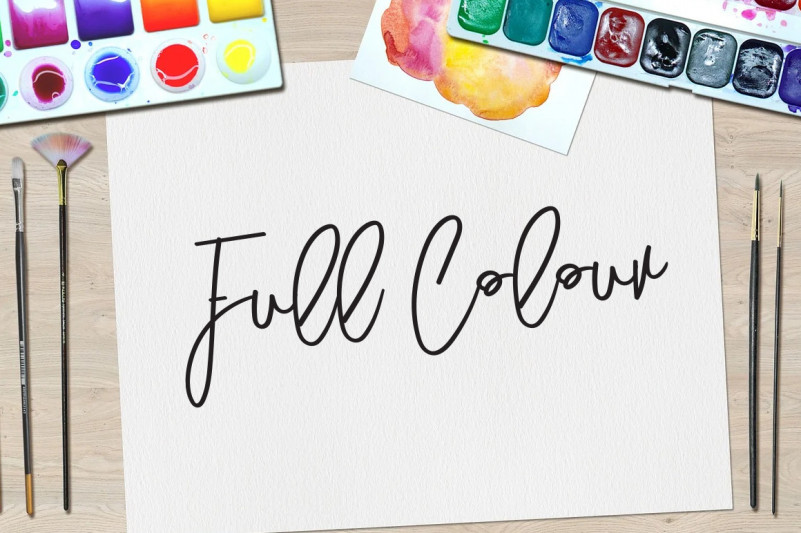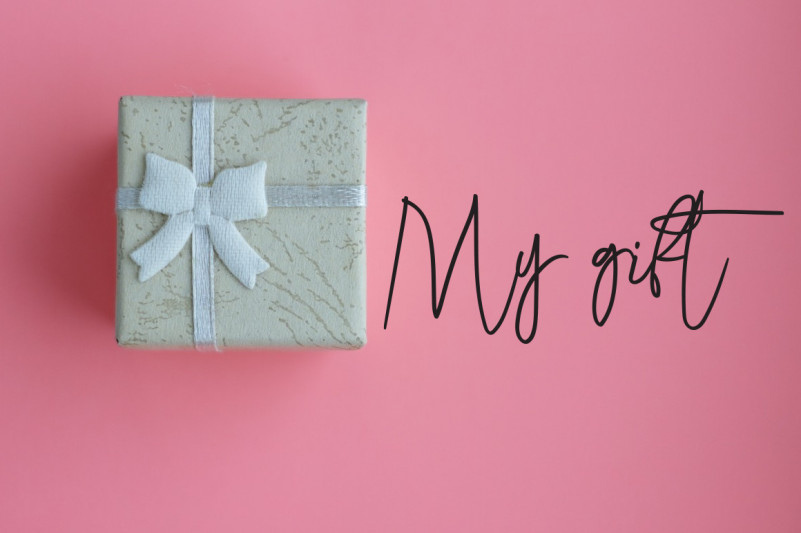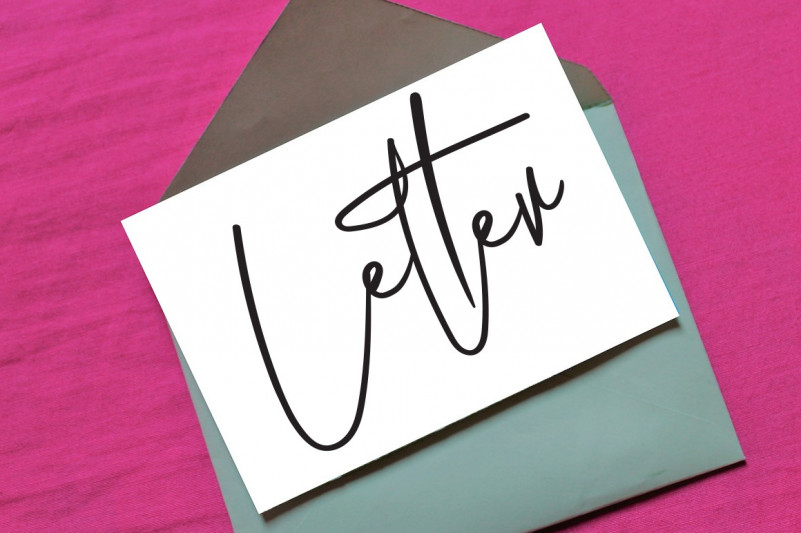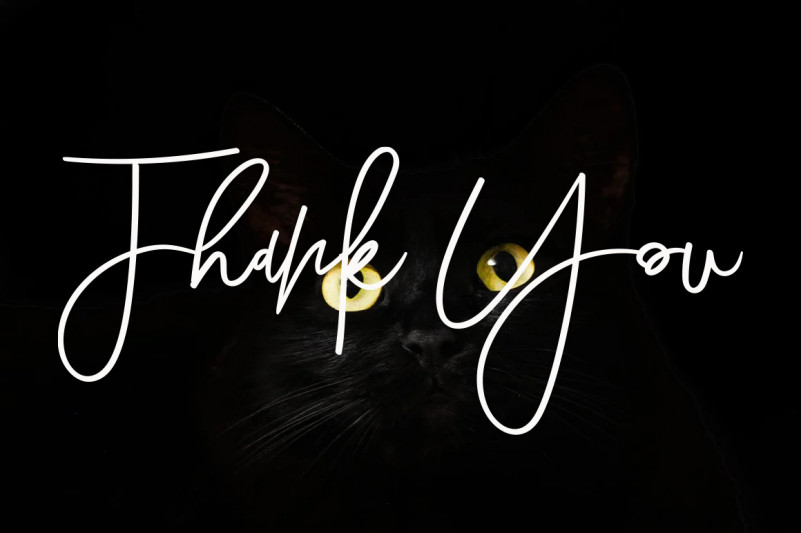
Little Farmhouse Handwritten Font
This is a delicate and genuine handwritten font. Masterfully designed to look original and natural, this font will help your creations stand out and impress!